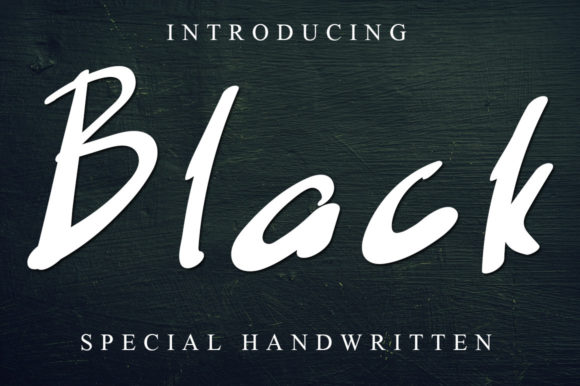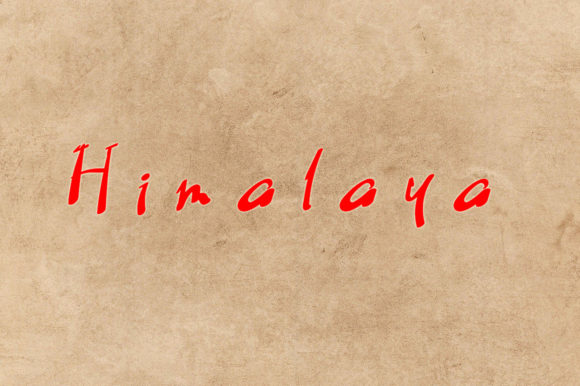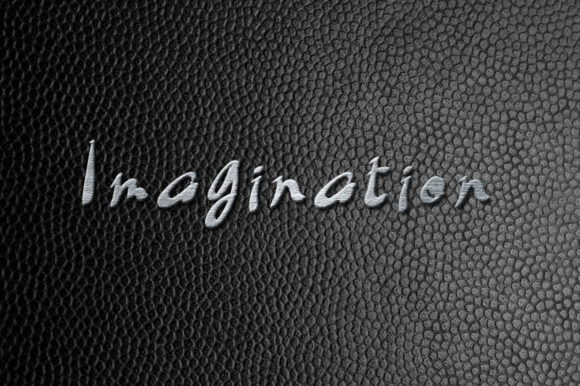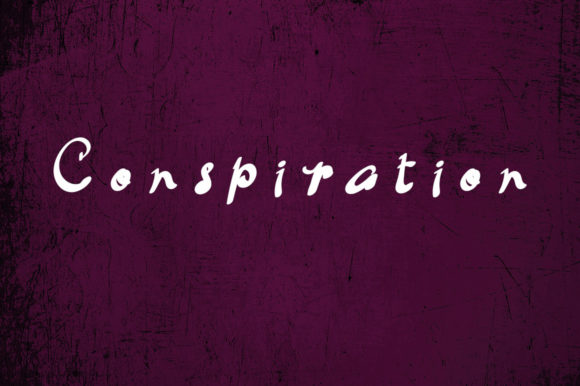
About Black Font
Black is a cool, trendy and urban styled handwritten font. This font is imposing and features uniquely shaped letters, and as a result, it will easily match a wide range of creations that require a distinct touch.